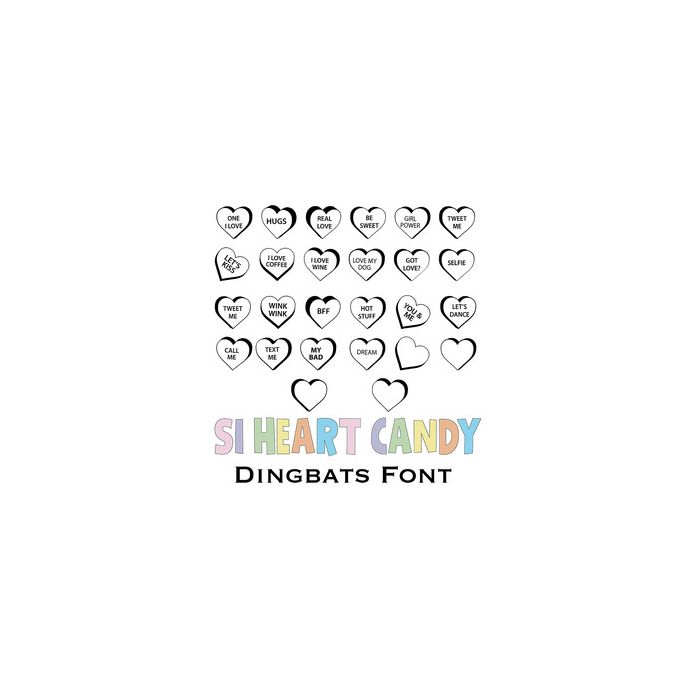
This conversation hearts dingbat font contains 26 different designs of fun conversation hearts to type and cut. There are also a few blank hearts to add your own sayings, perhaps names. They can be used in a variety of projects. They can be used to create on tattoo paper, window clings, tags, cards, charts, planners, stamps, scrapbooking, labels - a lot of projects. They can be re-sized without affecting the quality. Connect with us at: https://www.facebook.com/sandiscribbles